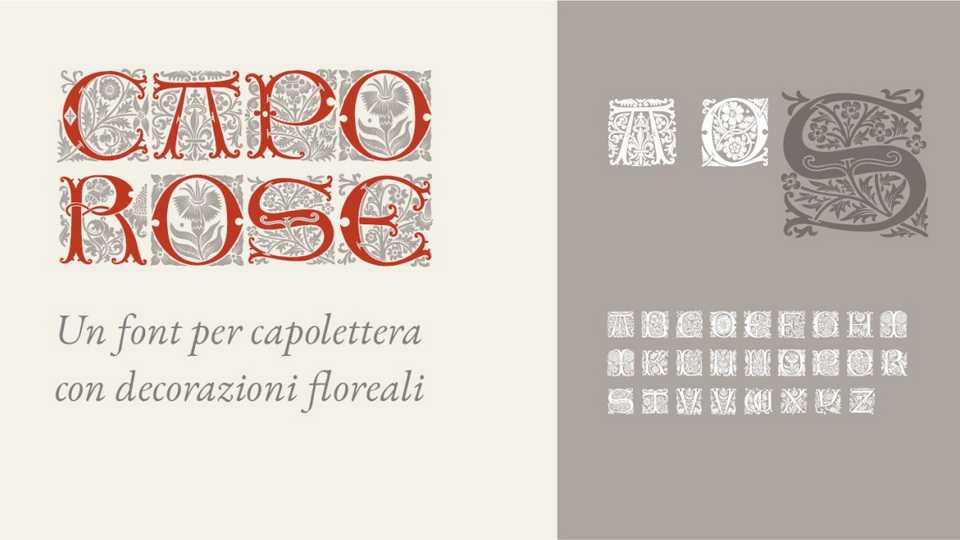
Download Capo Rose font, a decorative display typeface crafted for illuminated initials, blending refined letterforms with lush floral ornamentation.
Designer: Michele Casanova